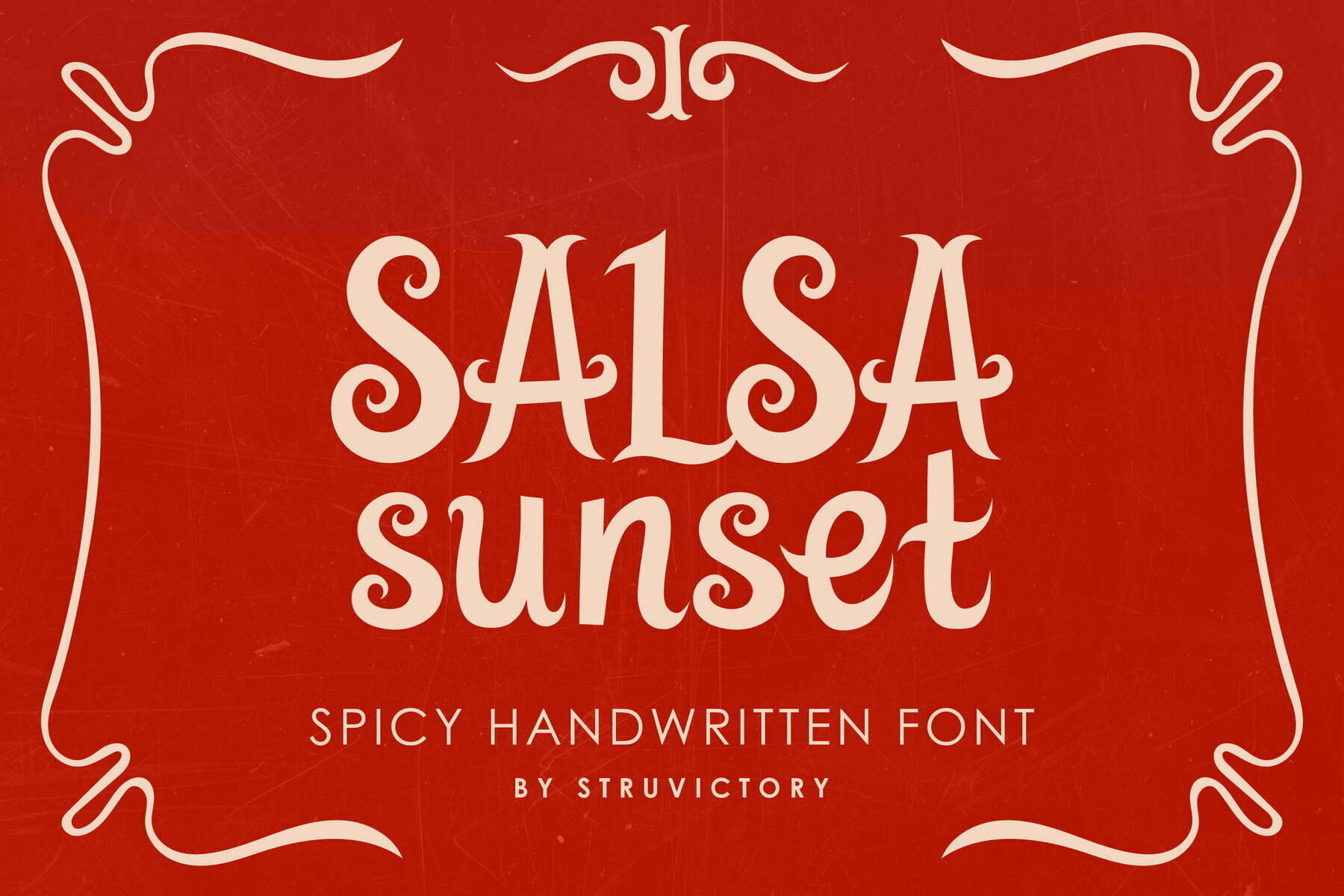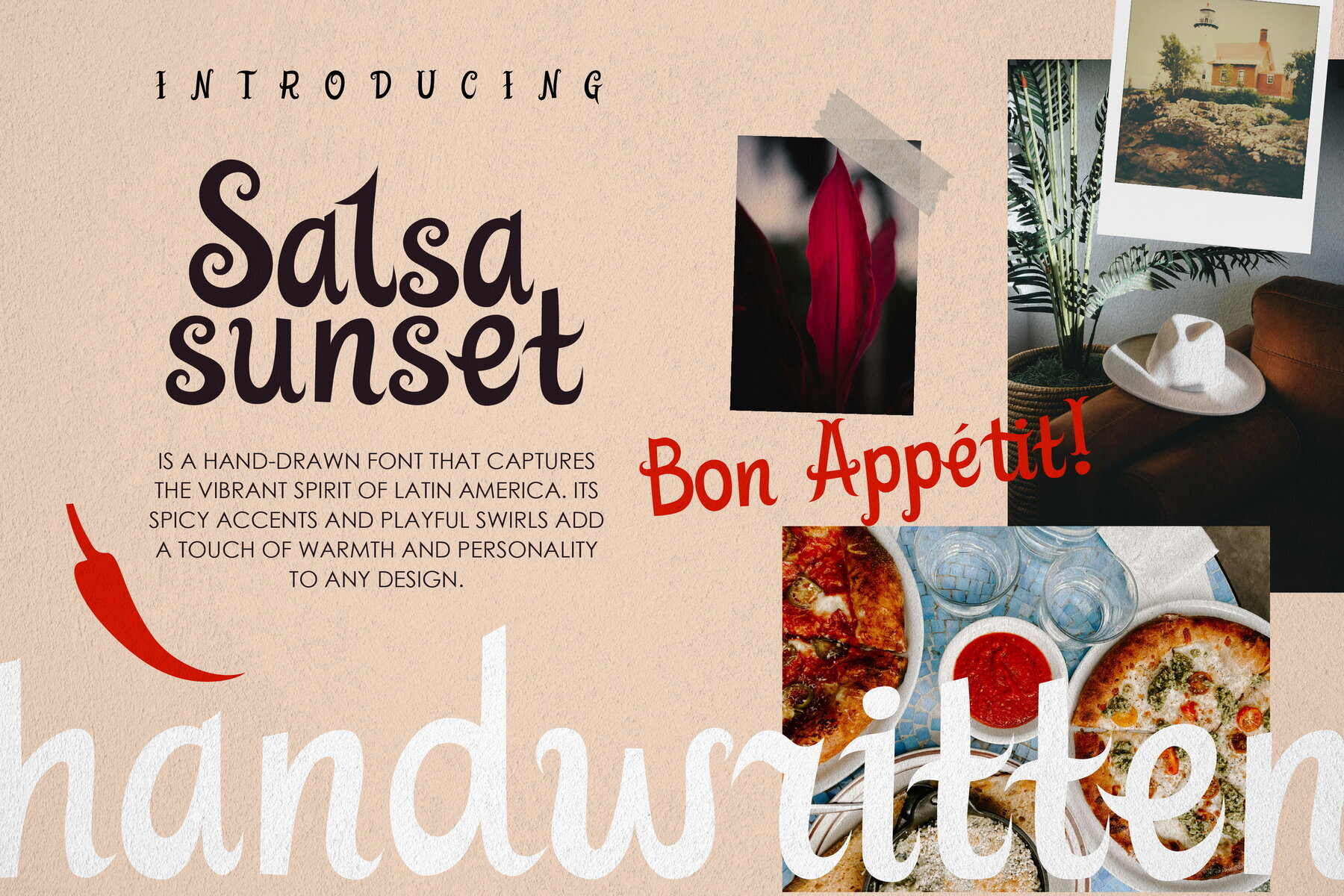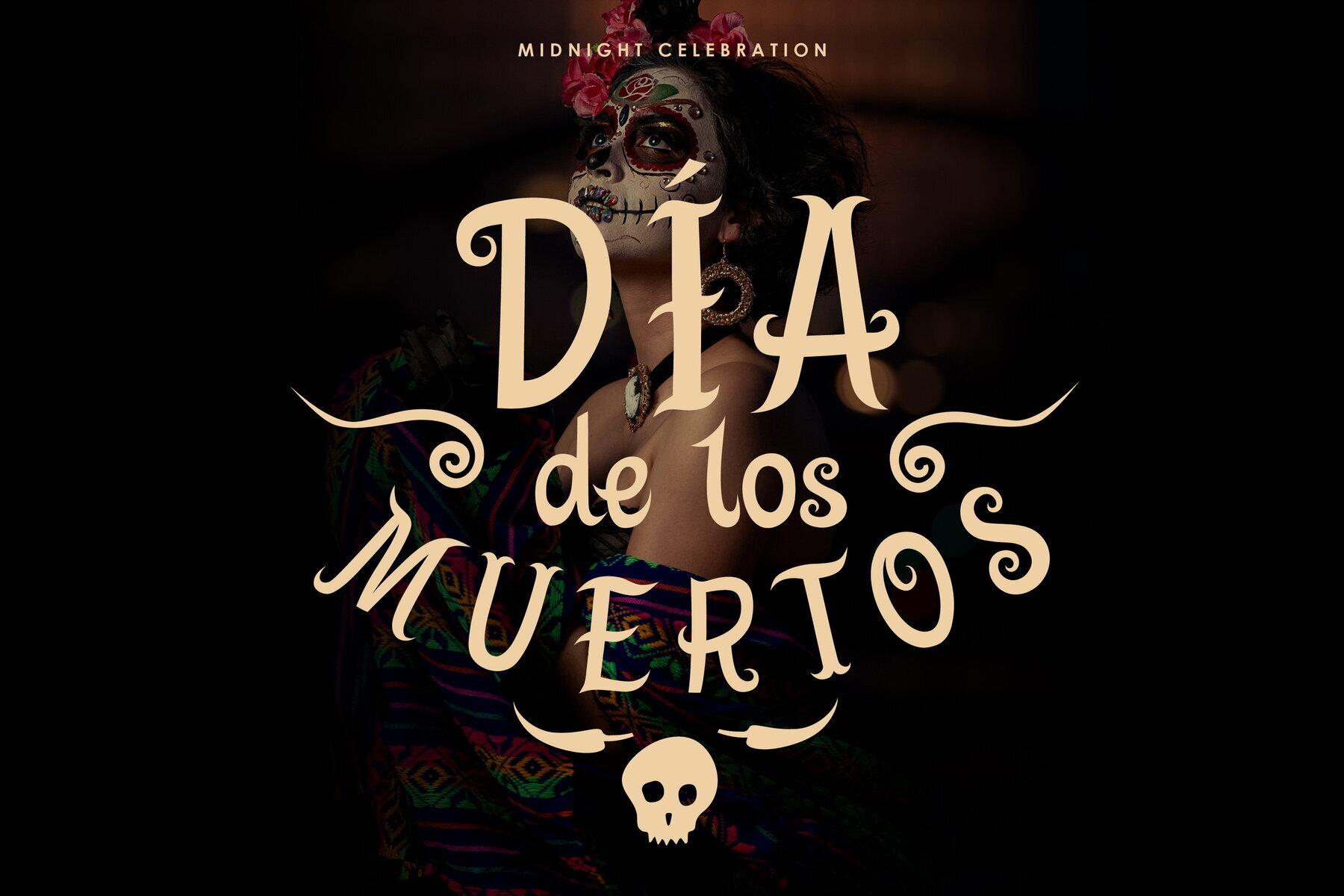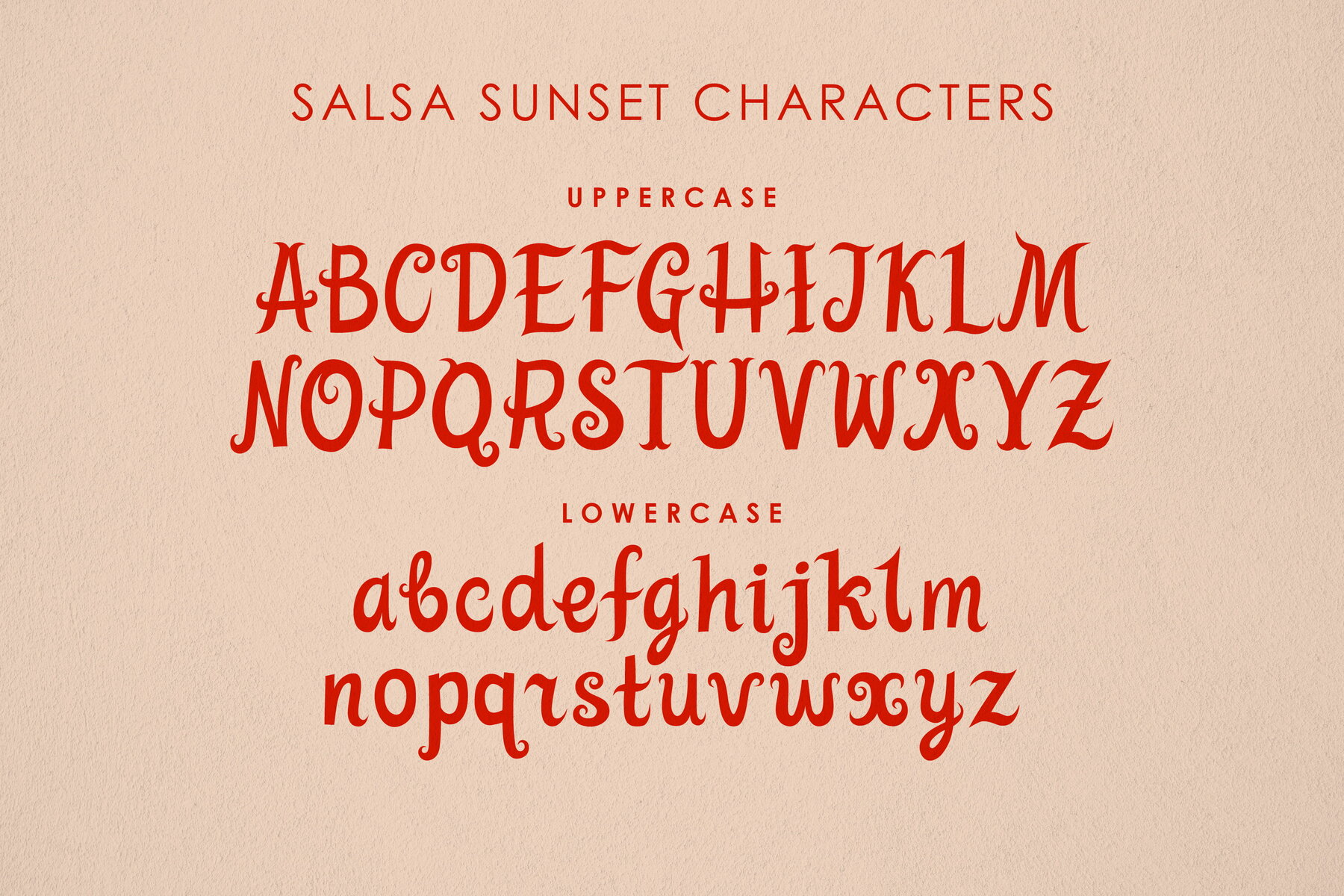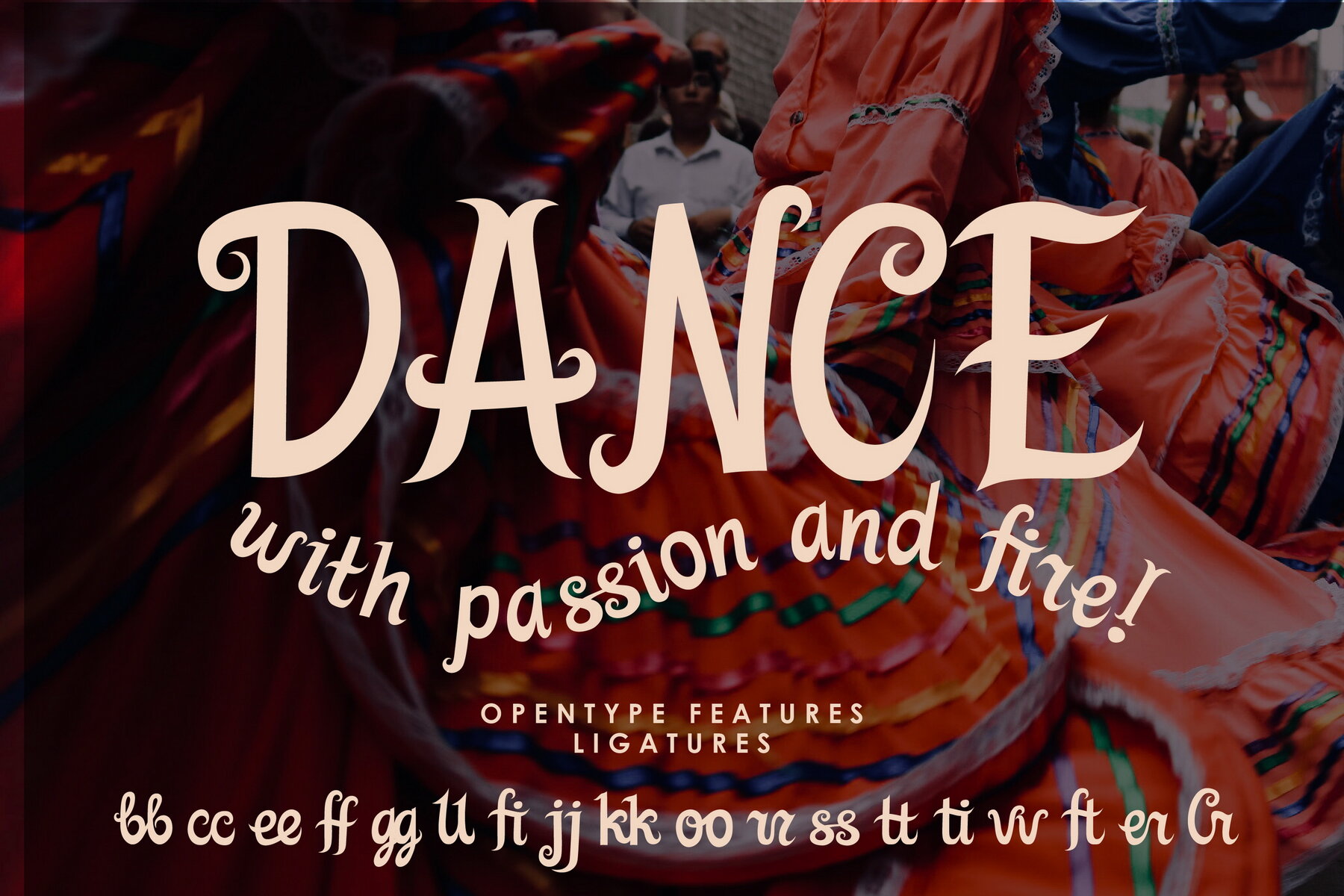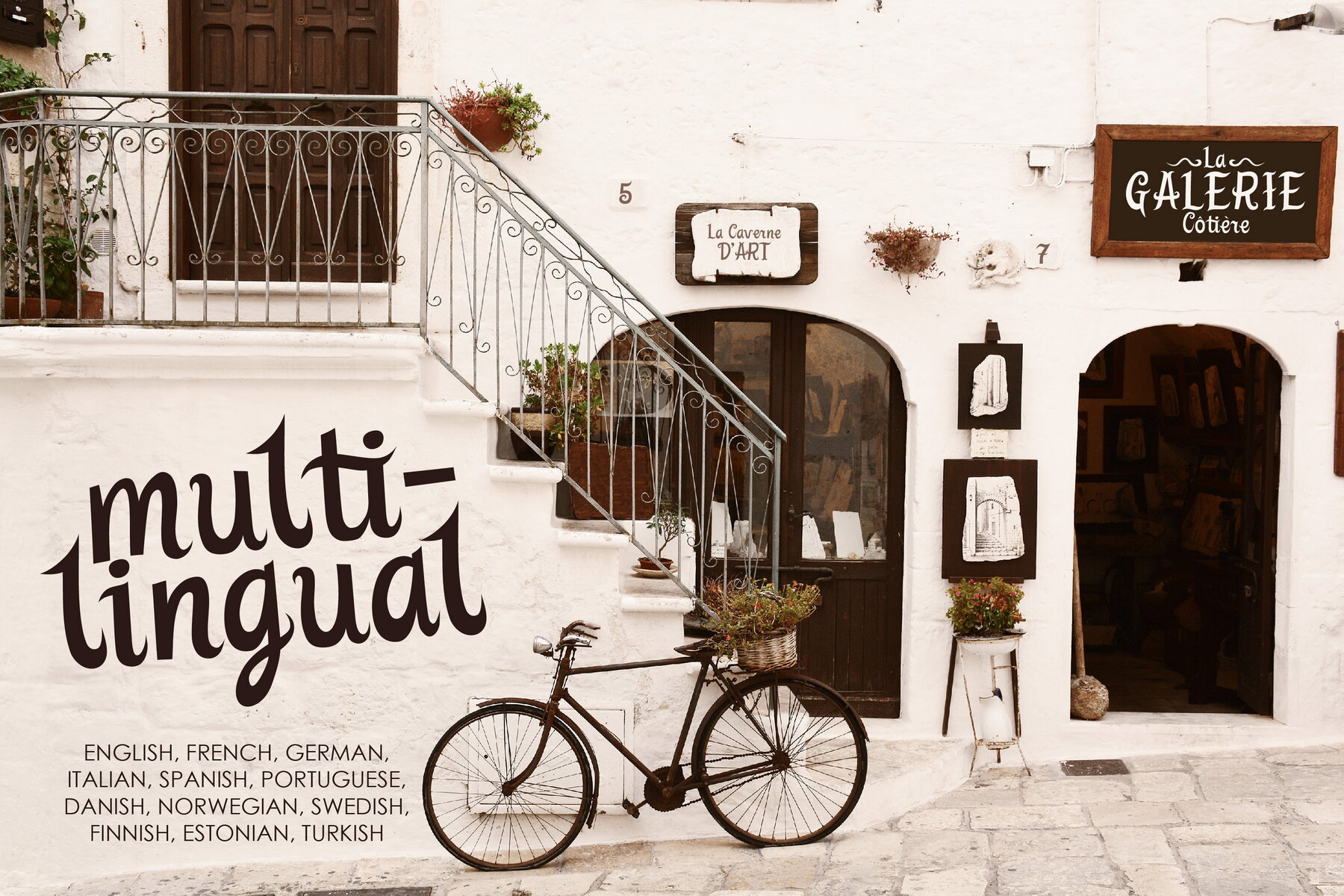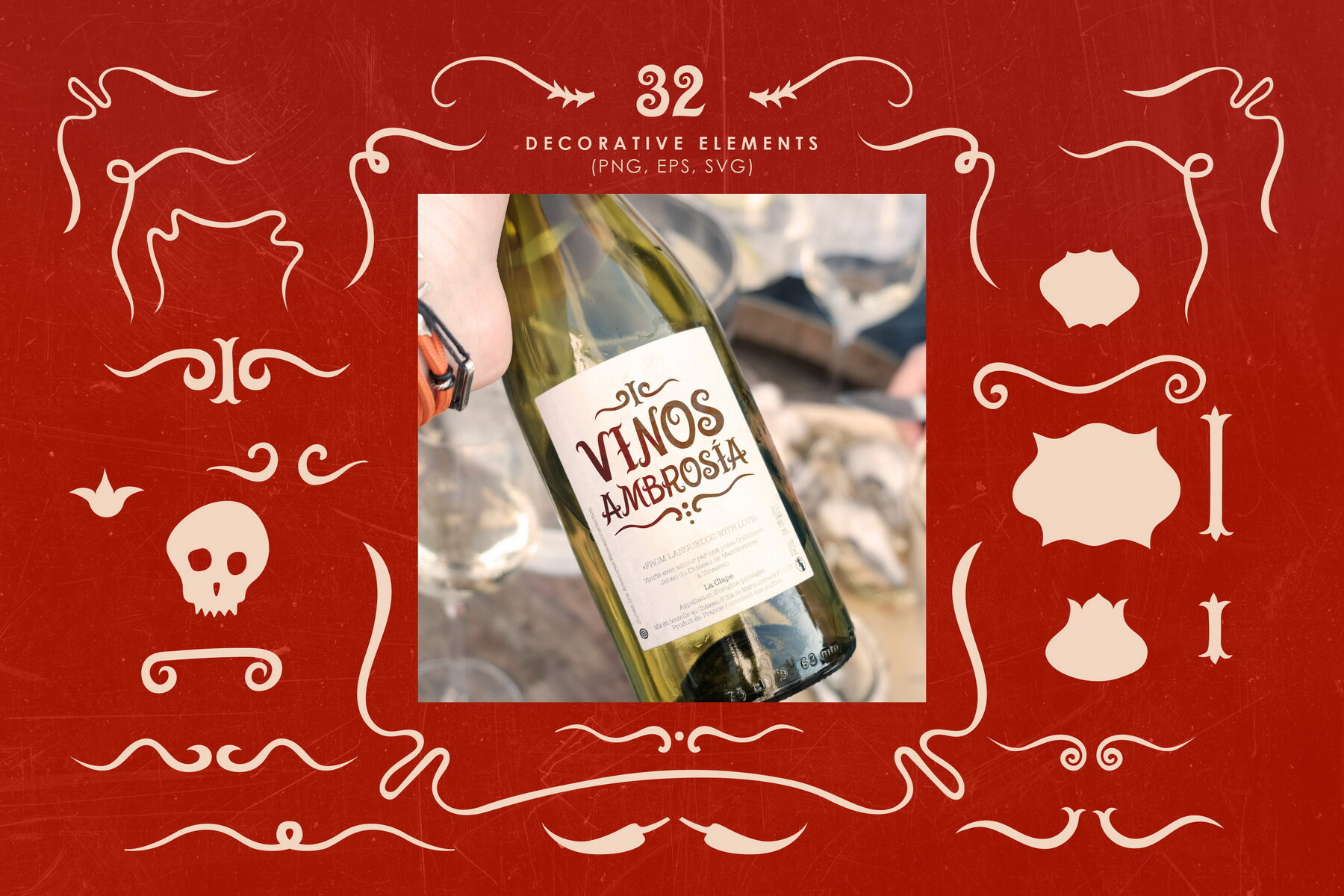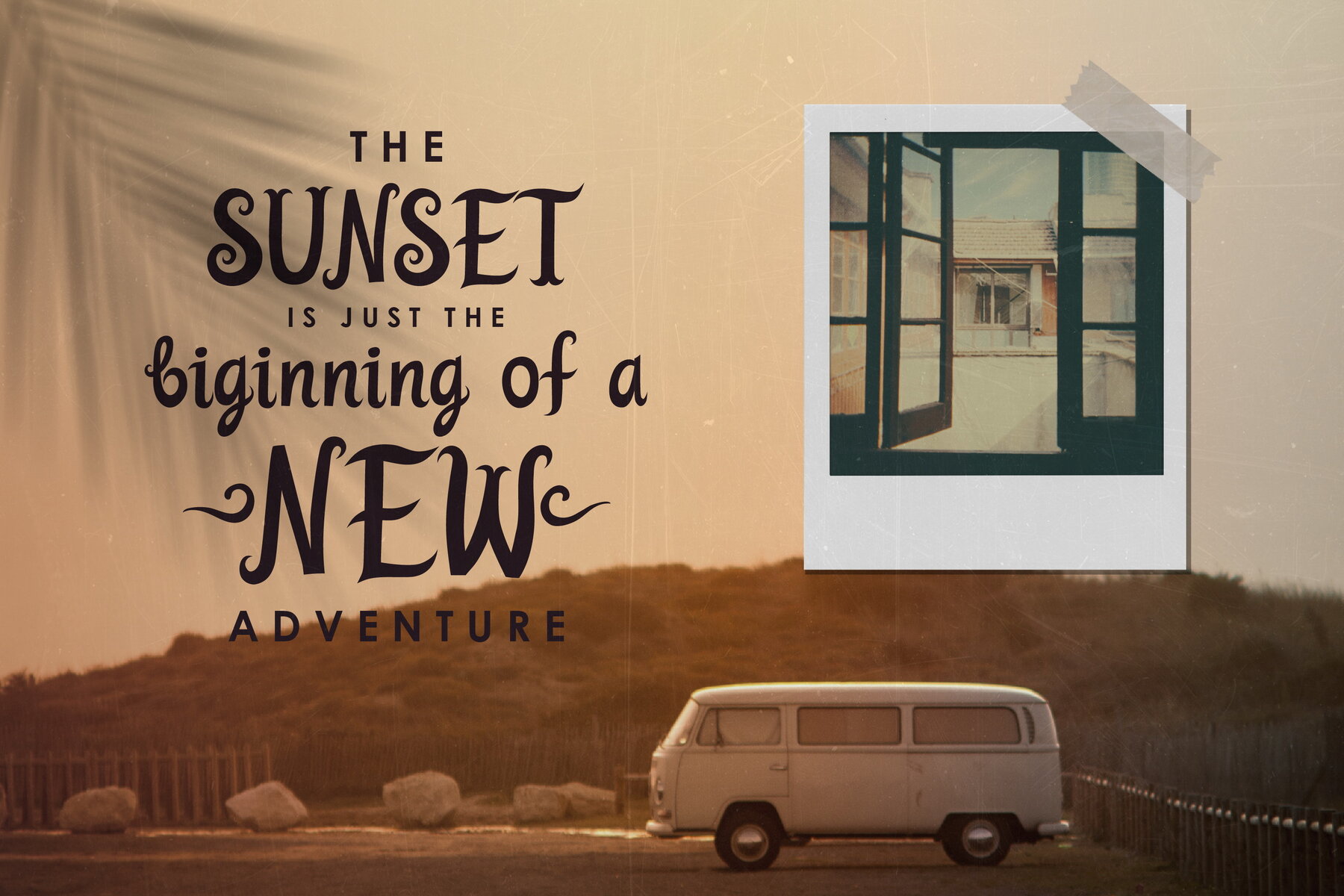
Salsa Sunset Font
Salsa Sunset is a vibrant hand-drawn font capturing the essence of Latin American culture. Its lively accents and charming swirls infuse warmth and personality into any project. Ideal for menus, event posters, or café signage, Salsa Sunset transforms your creative vision into a lively experience, making it perfect for a range of applications including restaurant menus or Día de Muertos posters.
This font offers extensive language support and includes ligatures, allowing you to craft unique and engaging designs. Beyond just a font, Salsa Sunset is a comprehensive design system that includes a collection of hand-drawn flourishes, borders, and corners. It is designed to create visually stunning works that pop. You will receive the Salsa Sunset font files along with decorative elements in various formats (EPS, PNG, SVG), ensuring each element is isolated for your convenience.